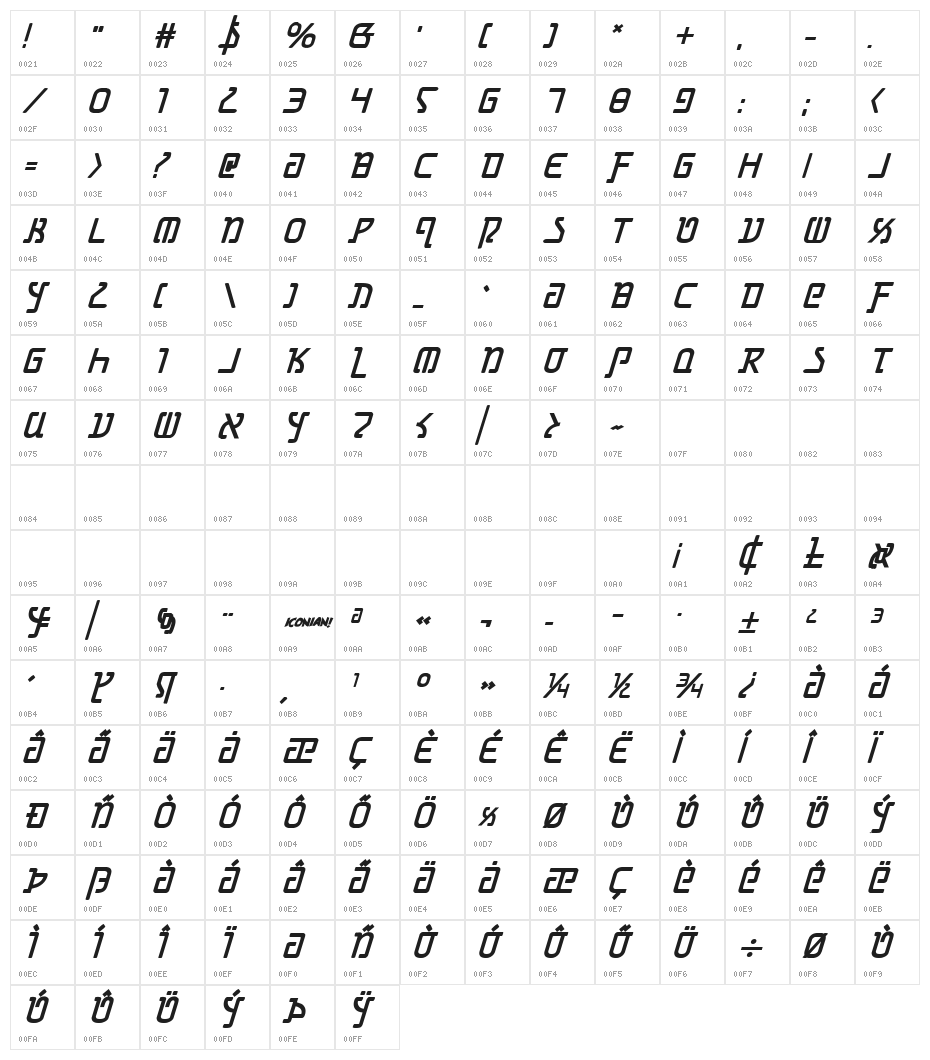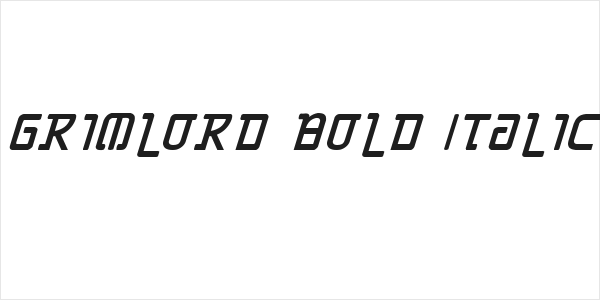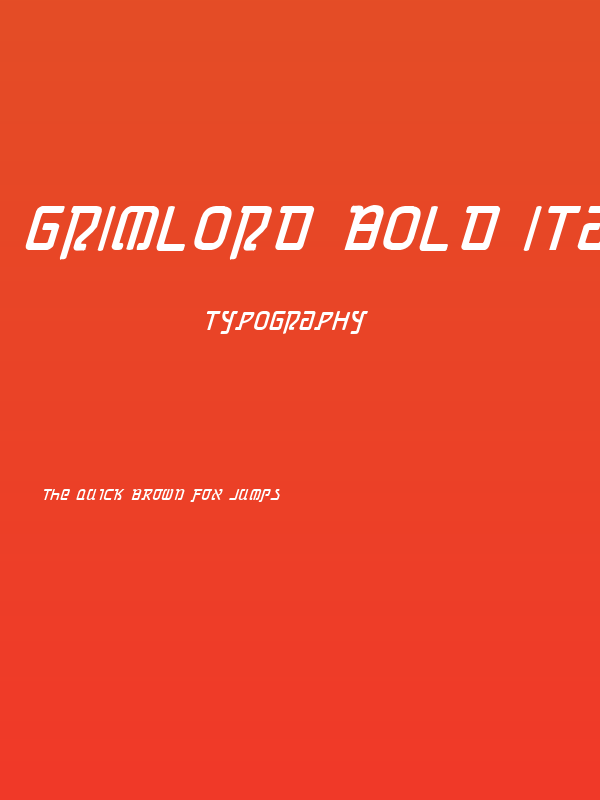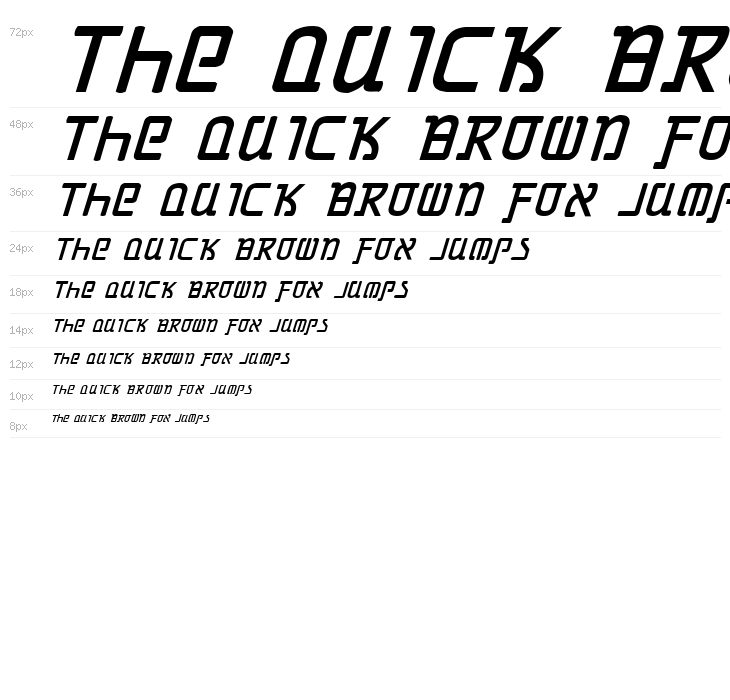
Grimlord Bold Italic Font
Grimlord Bold Italic Description
This font features a bold and italicized style with a modern, futuristic aesthetic. The characters are slightly slanted, giving a sense of motion and dynamism. The strokes are thick and consistent, providing a strong visual impact. The design is clean and geometric, with sharp angles and a uniform width across all characters. The uppercase and lowercase letters maintain a cohesive look, while the numerals and special characters complement the overall style. This font is ideal for projects that require a bold, assertive presence.
| Overall Style | Modern, Futuristic |
| Proposed Projects | Ideal for branding, headlines, posters, and any design needing a strong, futuristic look. |